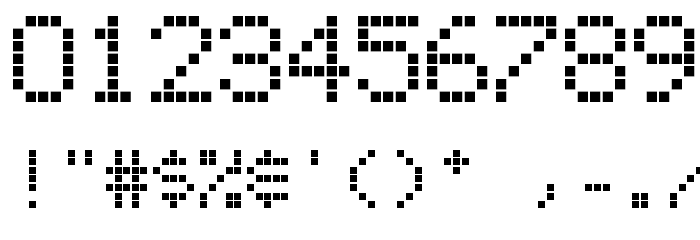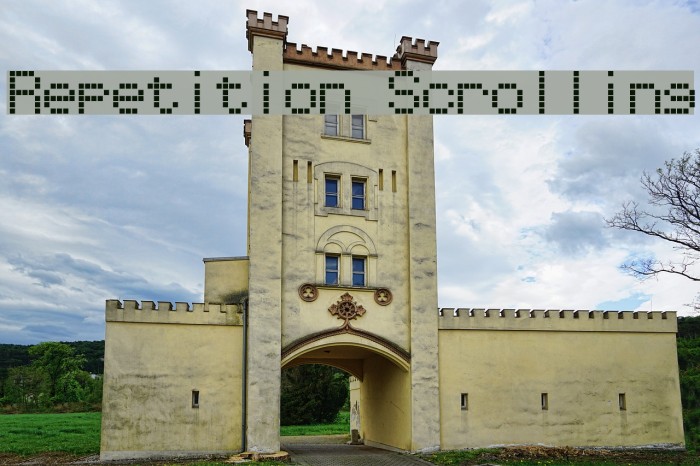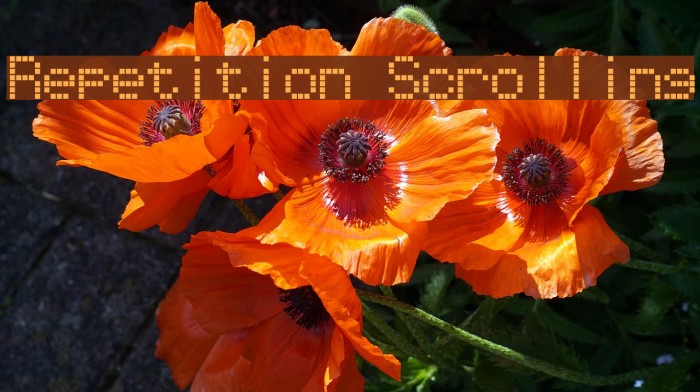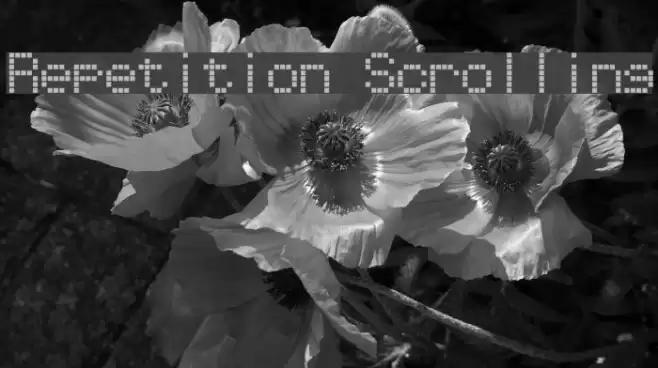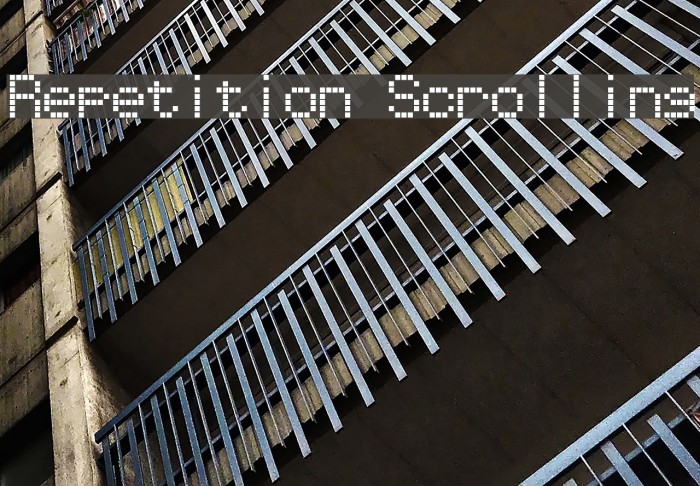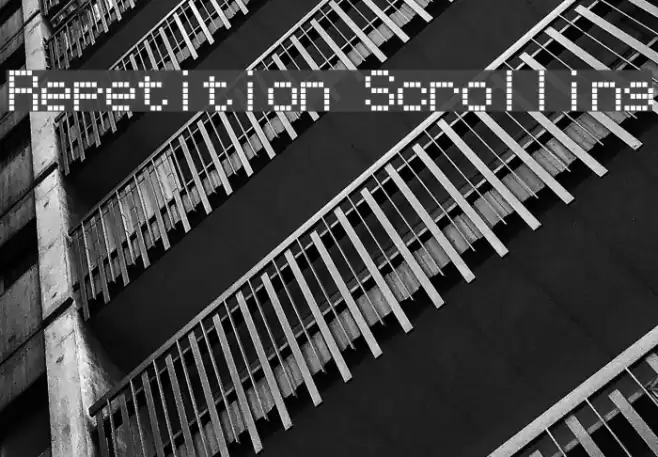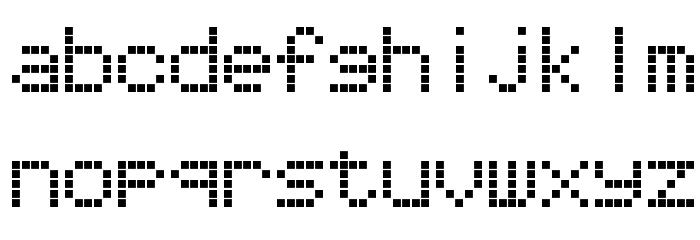
Repetition Scrolling Font
Repetition Scrolling Description
This font features a distinctive pixelated design, reminiscent of early digital displays and retro gaming aesthetics. Each character is constructed from a grid of small squares, creating a blocky and geometric appearance. The uniformity of the squares gives the typeface a monospaced feel, although it maintains a playful and decorative style. The uppercase and lowercase letters are clearly defined, with consistent spacing and alignment. Numbers and special characters follow the same pixelated pattern, ensuring a cohesive look across all glyphs. This font's unique style makes it ideal for projects that aim to evoke nostalgia or a digital theme.
| Overall Style | Retro, Digital |
| Use Case | Logos, Posters, Digital Art |
| Proposed Projects | Ideal for retro video game designs, digital-themed posters, and nostalgic branding projects. |